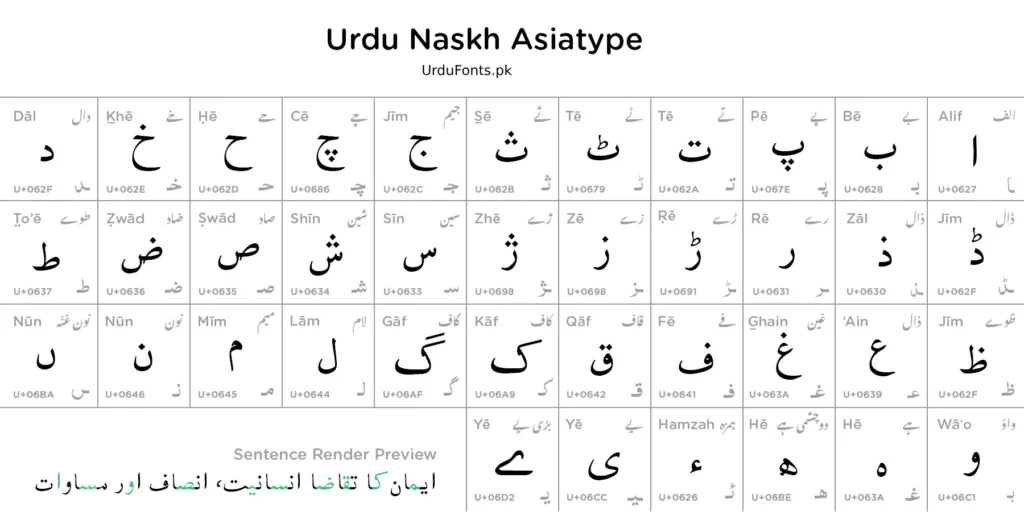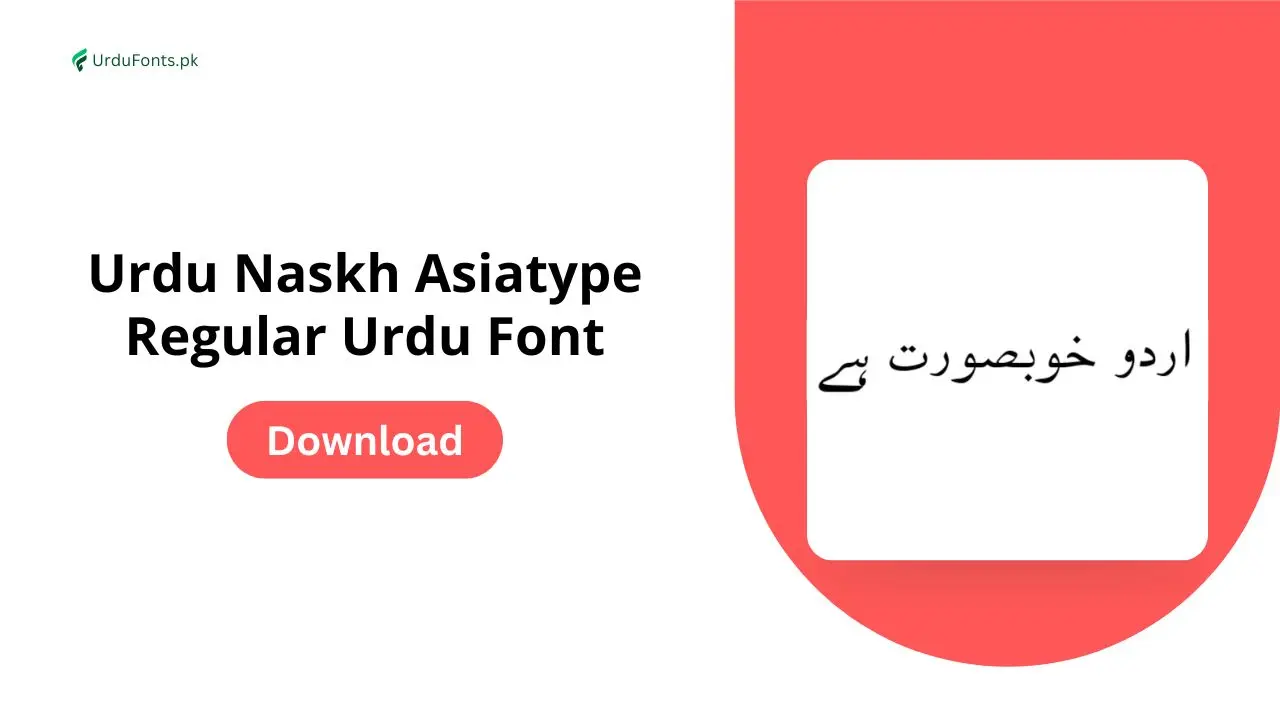
What is Urdu Naskh Asiatype Regular?
Urdu Naskh Asiatype Regular is a digital typeface that faithfully reproduces the clear, readable style of the Naskh script, tailored specifically for Urdu text. Developed by Asiatype, it combines traditional calligraphic elements with modern design principles, ensuring optimal legibility and aesthetic appeal.
Key Features
- Authentic Naskh style optimized for Urdu
- Balanced proportions suitable for various text sizes
- Optimized for both print and digital applications
- Smooth rendering on different devices and platforms